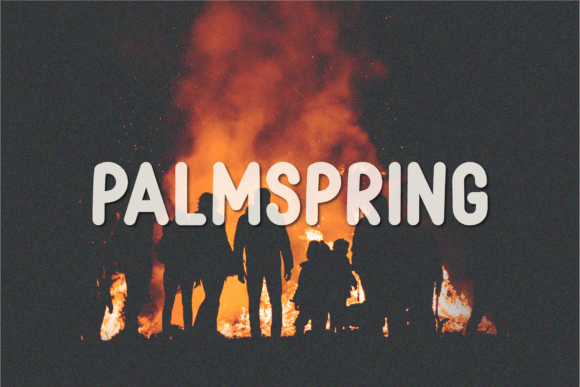
Unleash your creativity with Palmspring Font, the captivating sans serif font that adds a touch of whimsy to your digital designs, crafts, presentations, and greeting cards. Step into a world of boundless expression, where your imagination takes center stage.
Palmspring Font: A Quirky, Playful Sans Serif Masterpiece
Meet Palmspring Font, a remarkable creation of Becraft, a font designer known for pushing creative boundaries. This all-caps sans serif font exudes personality and charm, making it the perfect choice for those seeking a unique and eye-catching font.
Designed with meticulous attention to detail, Palmspring Font boasts a distinctive character that sets it apart from the ordinary. Its playful curves and sharp angles dance together in perfect harmony, creating a visual symphony that captivates and enchants. Whether you're a seasoned designer or just starting your creative journey, Palmspring Font is your perfect companion.
Experience the Versatility of Palmspring Font
With its remarkable versatility, Palmspring Font effortlessly adapts to a wide range of creative endeavors. From crafting heartfelt greeting cards that convey your warmest sentiments to designing captivating digital content that leaves a lasting impression, this font is your trusty ally. Unleash your imagination and transform ordinary designs into extraordinary masterpieces.
Make a Statement with Palmspring Font
In a world saturated with uniformity, Palmspring Font empowers you to make a statement and stand out from the crowd. Its quirky charm and playful nature add a touch of individuality to your projects, ensuring they leave an unforgettable mark on your audience. Let Palmspring Font be your secret weapon to captivate and engage, leaving a lasting impression that resonates long after the page is turned.
Elevate Your Creativity to New Heights
Palmspring Font is more than just a font; it's an invitation to embark on a creative adventure. Its unique personality and boundless versatility inspire you to push the boundaries of your imagination, explore uncharted design territories, and create works of art that speak volumes. Let Palmspring Font be your muse, guiding you towards creative greatness.